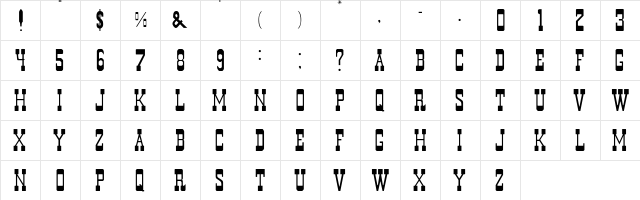
Murdano-Normal Regular
Design Context for Murdano-Normal Typeface
Murdano-Normal takes a measured approach to typography — its balanced proportions and neutral character make it a reliable workhorse for both digital and print work.
Pro Tip: Use Murdano-Normal in both headline and body roles to test its range before committing to a single application.